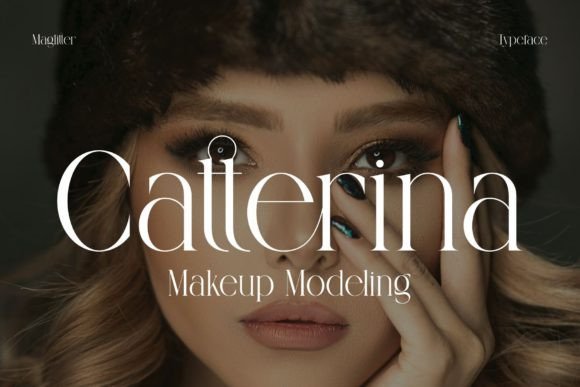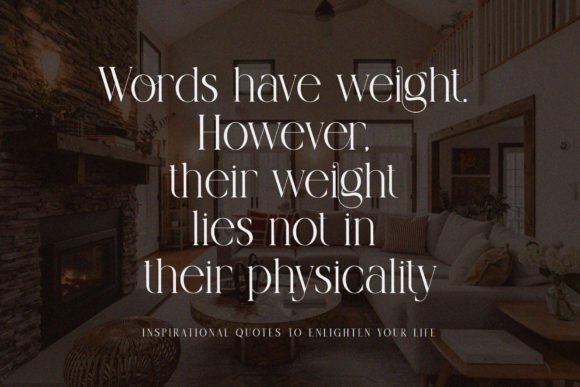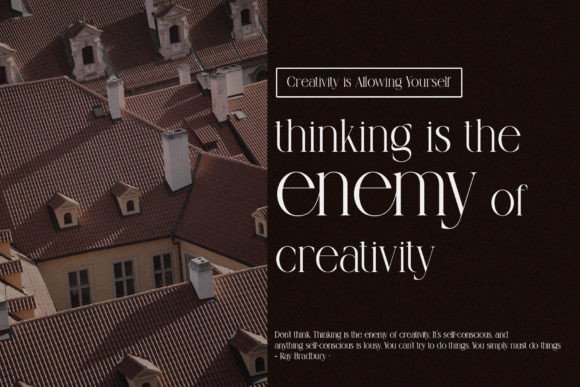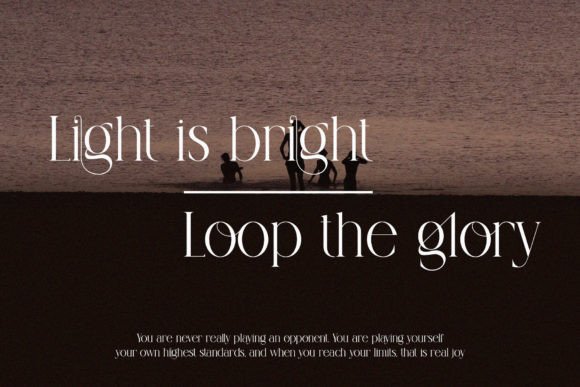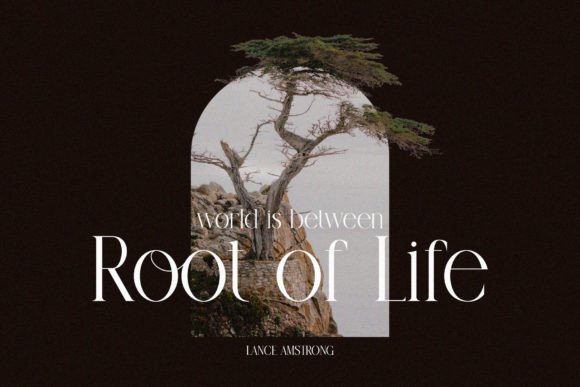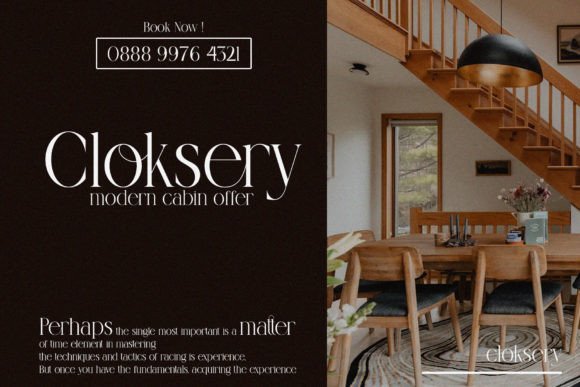
Introduction to Maglitter Font Font
Fonts play a crucial role in design, and the Maglitter Font font is a typeface that brings both character and versatility to any project. Whether you’re working on a branding project, a website, or a print design, the Maglitter Font font offers a unique style that can elevate your work.
**Maglitter** Modern Ligature Serif Typeface inspired by the famous minimalist logo perfect for the purposes of designing templates, brochures, videos, advertising branding, logos, invitation, layout design, elegant crafting, beauty design and others.
Key Features of Maglitter Font Font
Why Choose Maglitter Font Font?
The Maglitter Font font is more than just a typeface – it’s a design tool that helps you communicate your message with style and clarity. Its unique character set and versatile design make it suitable for a wide range of applications, from elegant invitations to bold headlines.
With its carefully crafted letterforms and balanced proportions, the Maglitter Font font ensures readability and visual appeal across all mediums.
What makes Maglitter Font font special?
The Maglitter Font font stands out with its unique design, exceptional readability, and versatility across various design applications.